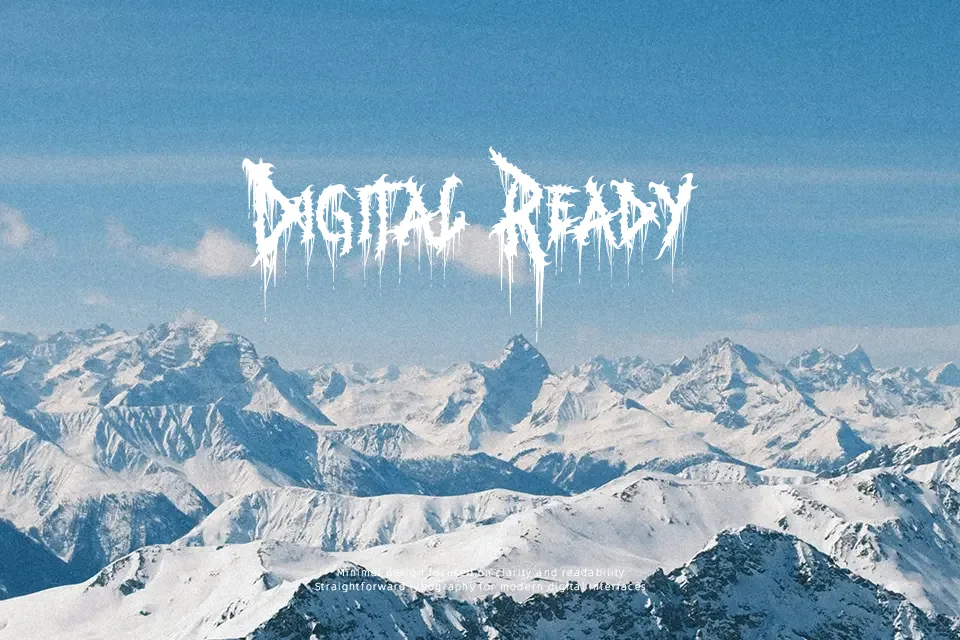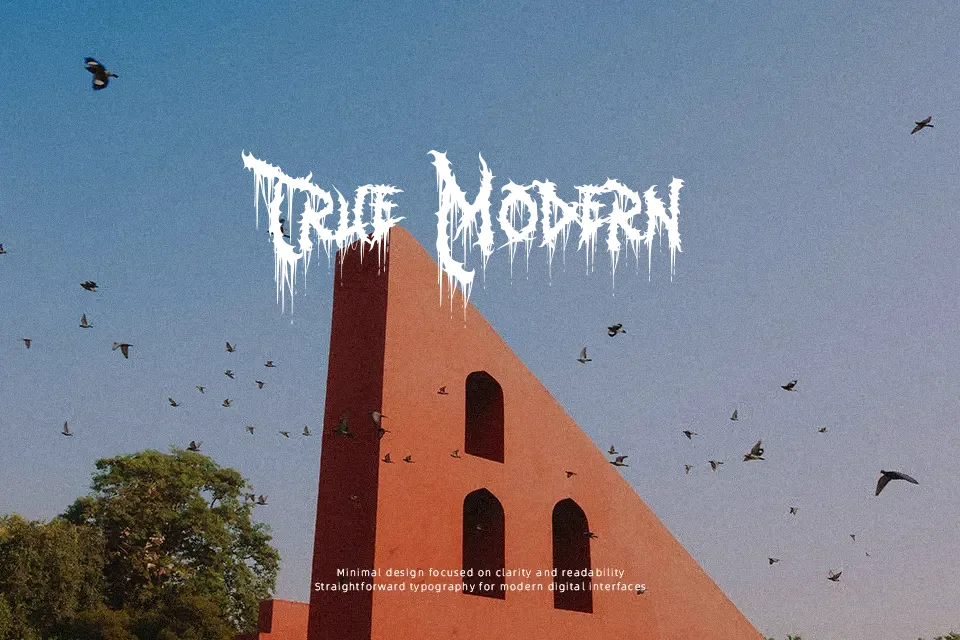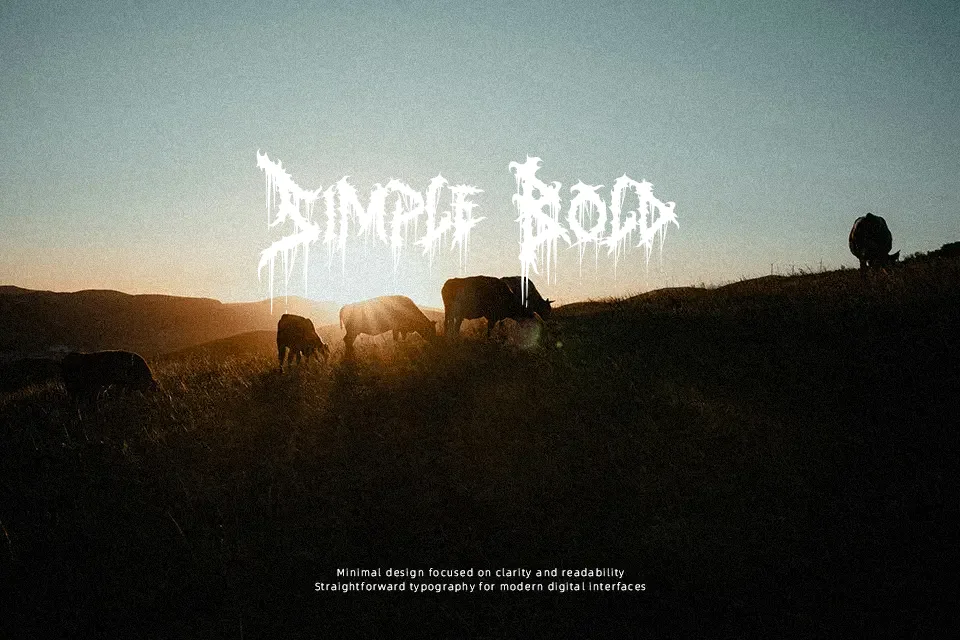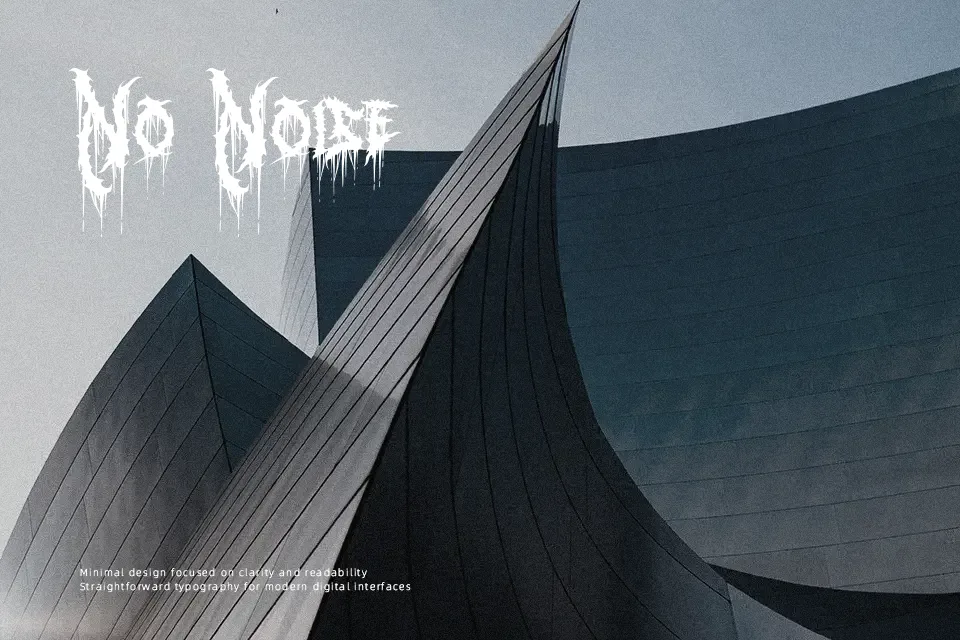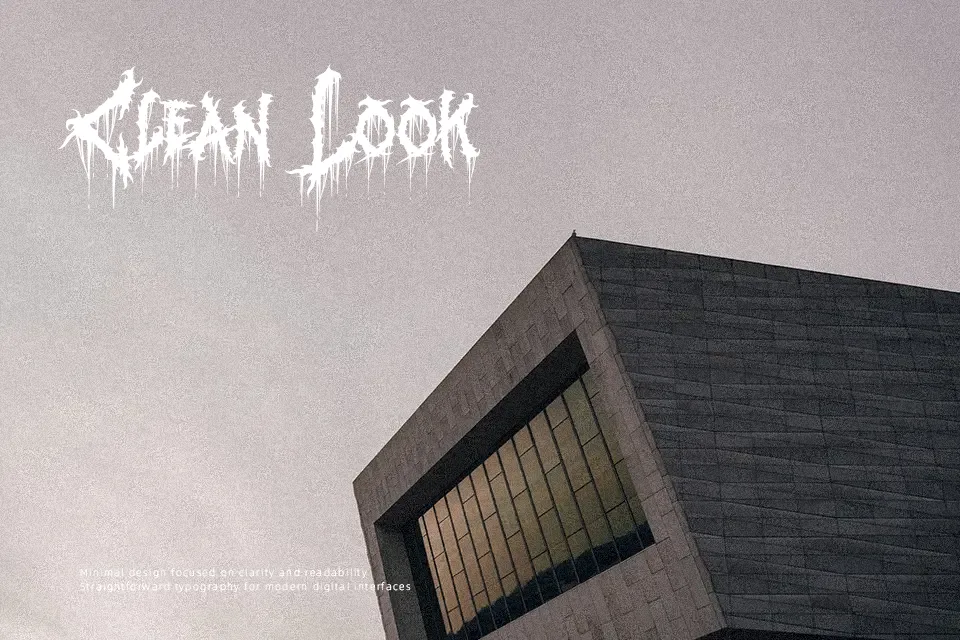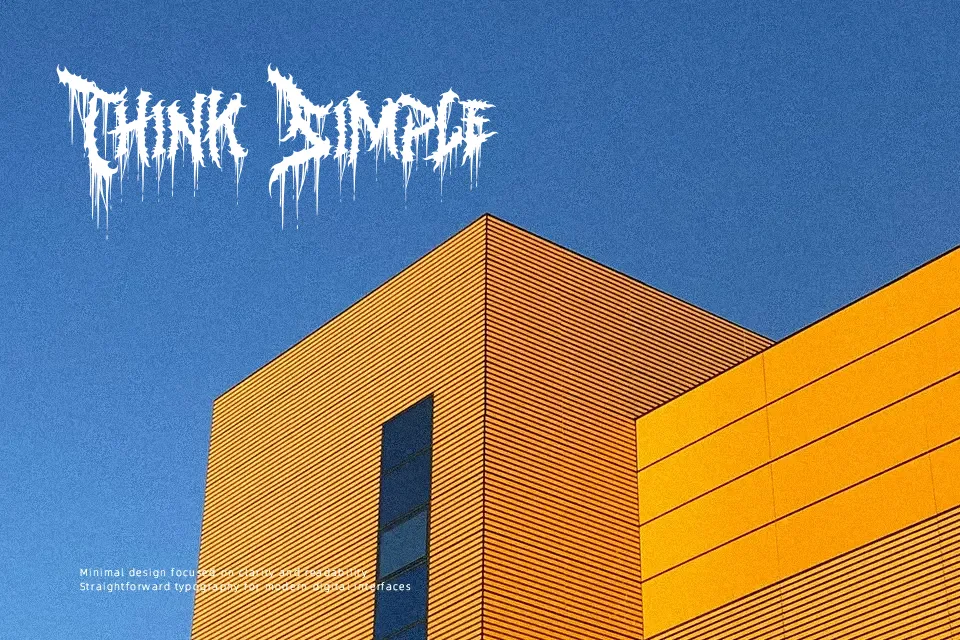
Bloody Hell Font
Bloody Hell delivers a visceral, aggressive aesthetic defined by sharp, jagged strokes and a highly distressed texture. The letterforms appear frantically scratched, giving this display typeface a chaotic, dripping look that commands immediate attention. Its grungy style naturally leans into the extreme and macabre. This typeface performs exceptionally well in heavy music branding, such as metal album covers and merchandise. It also serves as a strong foundation for horror movie titles, edgy streetwear, and dark tattoo graphics. However, its heavy distress and erratic baseline severely compromise readability at smaller sizes. Because of its overpowering visual noise, designers should avoid it for corporate identities, user interfaces, or dense body text.
Best For: Extreme metal band logos, horror film promotional posters, edgy apparel graphics, dark tattoo designs
Not Ideal For: Extended body copy and small print, minimalist corporate branding, user interface design
Perfect for halloween, logo, and music, with a bold and decorative style.